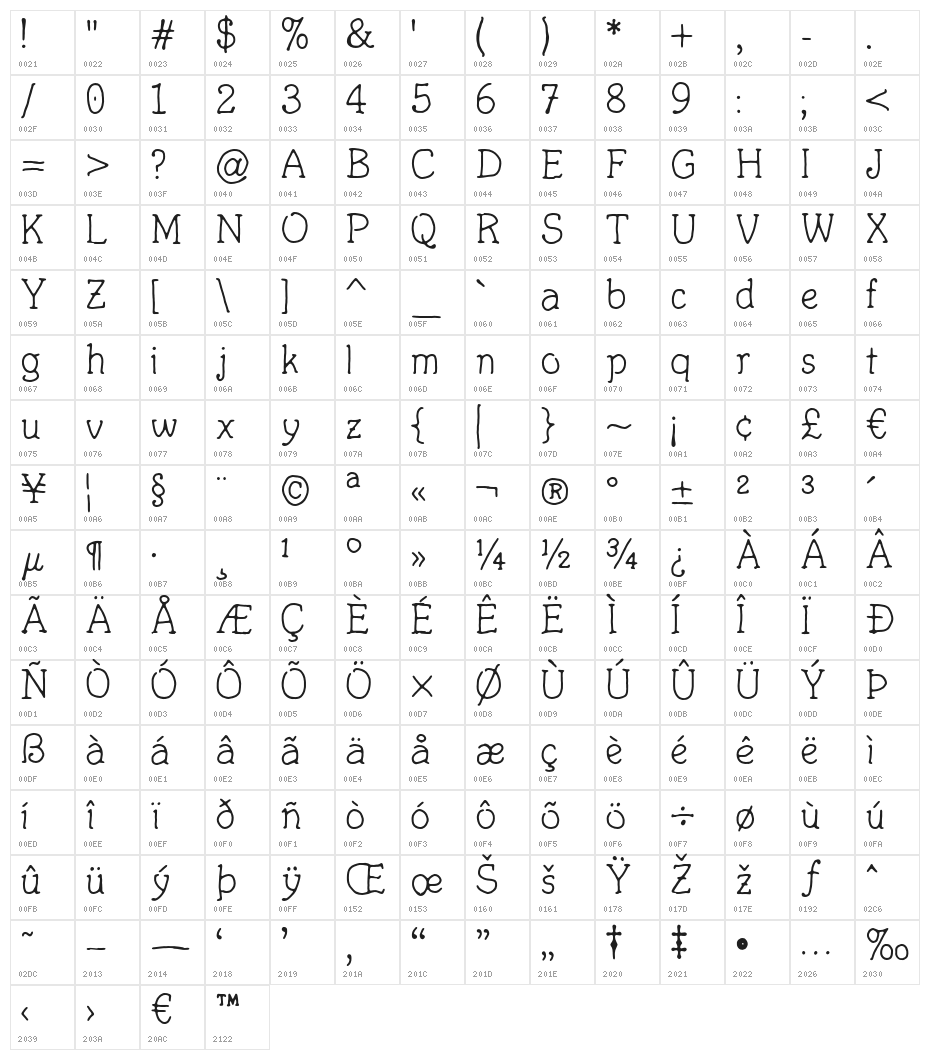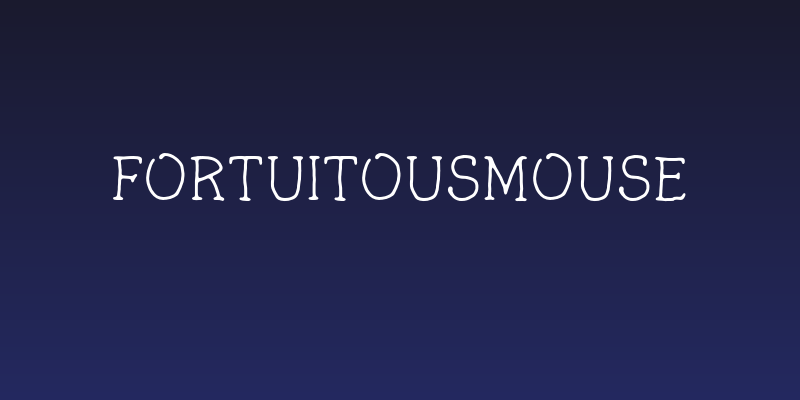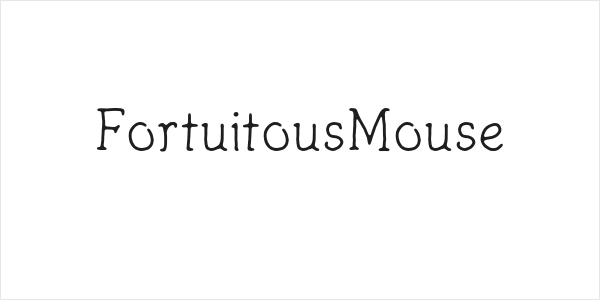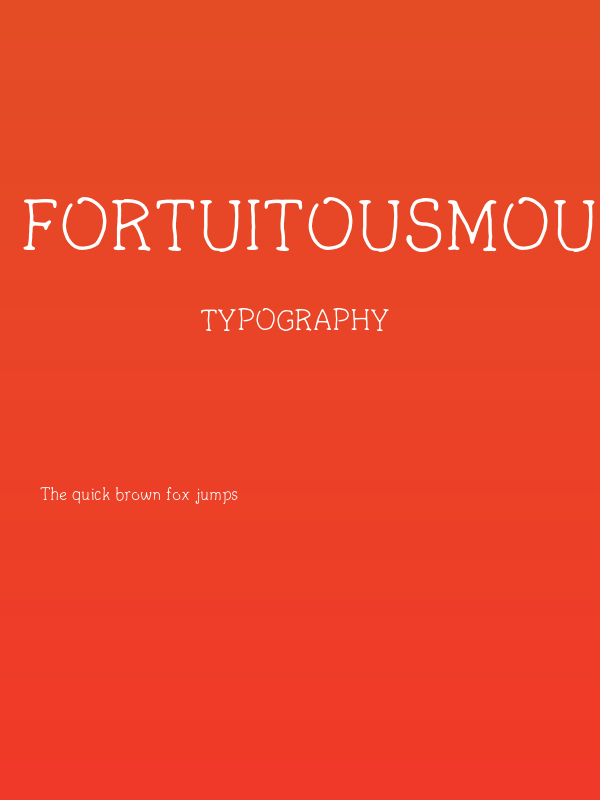
FortuitousMouse Font
FortuitousMouse Description
This font features a playful and whimsical design, characterized by its hand-drawn appearance. The letters have an uneven, slightly wobbly structure, giving them a casual and informal look. The strokes are consistent in thickness, providing a uniform appearance across all characters. The uppercase and lowercase letters maintain a cohesive style, with rounded edges and a slightly irregular baseline that adds to the font's charm. The numerals and special characters follow the same playful aesthetic, making them suitable for creative and artistic projects. This font exudes a friendly and approachable vibe, perfect for designs that aim to convey warmth and personality.
| Overall Style | Whimsical |
| Proposed Projects | Ideal for children's books, greeting cards, playful branding, and creative posters. |